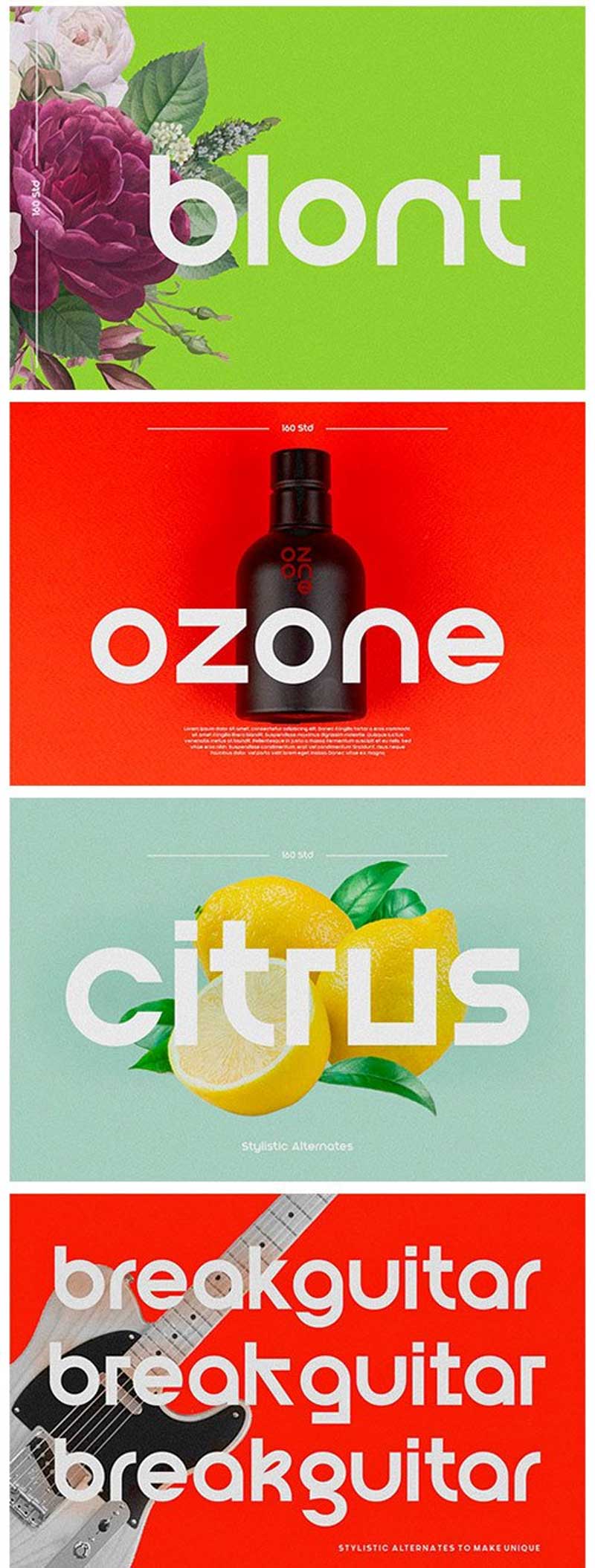
CM – Blont | Modern & Clean Logo Font 6259854
Perfect for logos. but also suaitable for headlines, titles and posters. comes with alternates to make unique, you can choose the best for you.